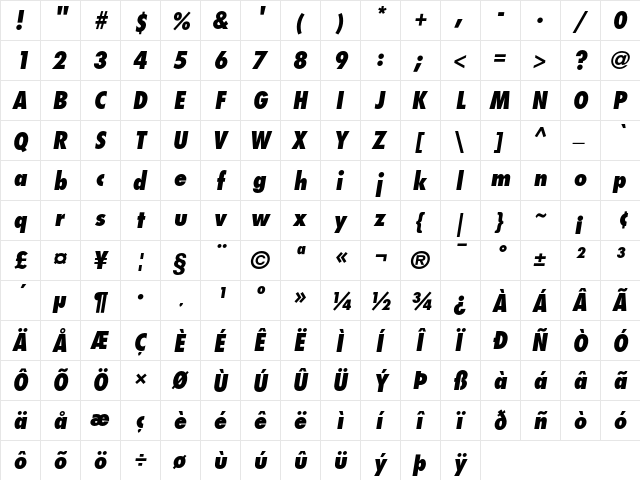
Futura Condensed Extra Bold Oblique Font Preview
| Style | Condensed Extra Bold Oblique |
Design Context for Futura Typeface
Futura channels digital-age aesthetics through its sharp, structured letterforms — ideal for brands that want to signal innovation. Its italic angle brings a sense of urgency and motion to the letterforms. The heavy weight commands attention and anchors typographic hierarchies. The condensed width makes it efficient for tight spaces without sacrificing legibility.
Pro Tip: Try Futura with generous letter-spacing in UI labels and navigation — the geometric forms benefit from room to breathe.